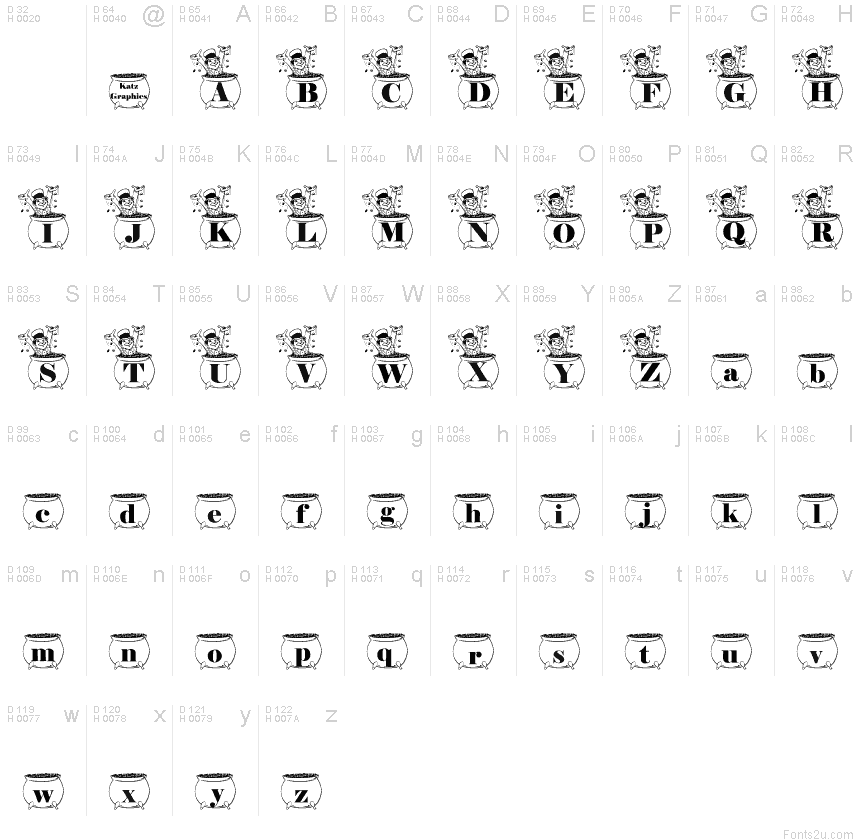
Stpats KG by Katz Graphics is a free cartoon display font built around stout serif capitals and a recurring leprechaun-and-cauldron scene with an old-fashioned storybook look. Each letter occupies the rounded pot like a label, with small coins, musical notes, and the waving figure turning the alphabet into a set of busy illustrated emblems.
Its unmistakable St. Patrick's Day theme suits party posters, event invitations, and seasonal merchandise. For pub promotions or themed food packaging, the repeated character and pot motif can become a ready-made brand mascot rather than ordinary lettering.